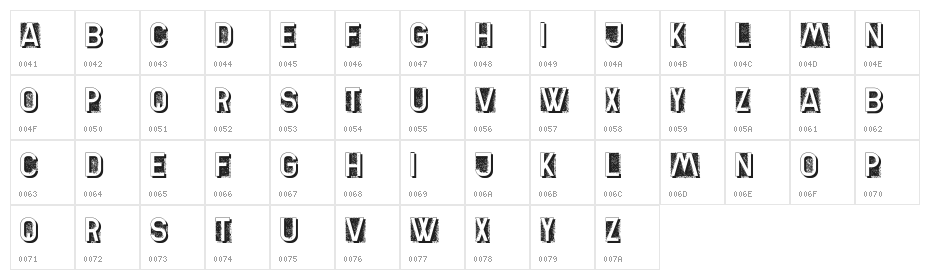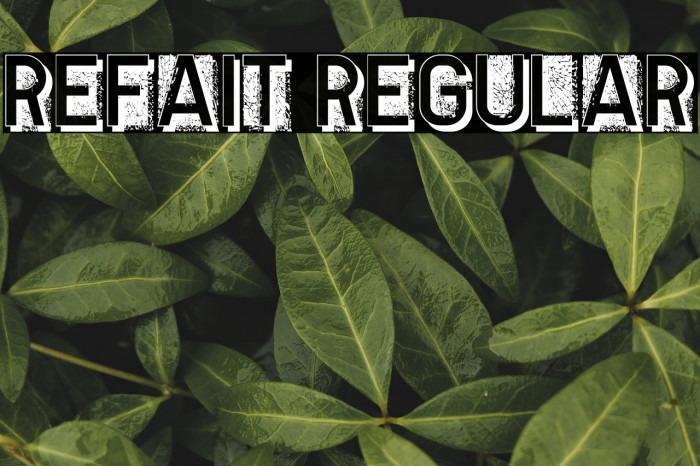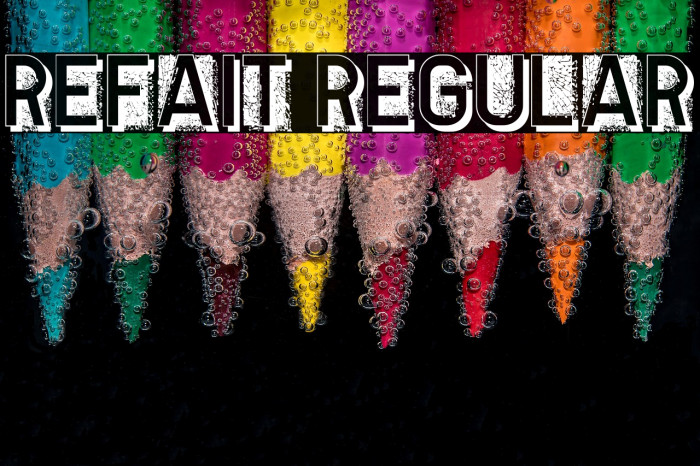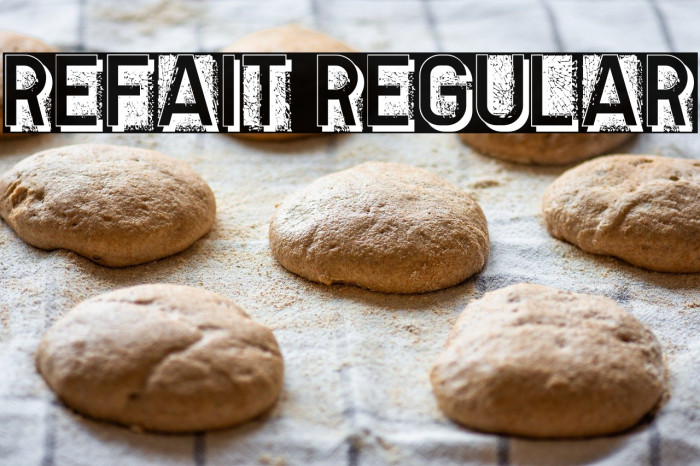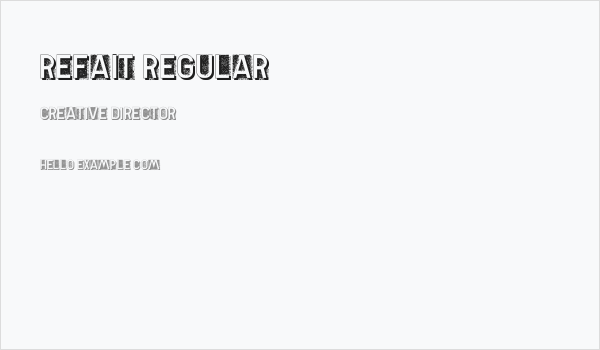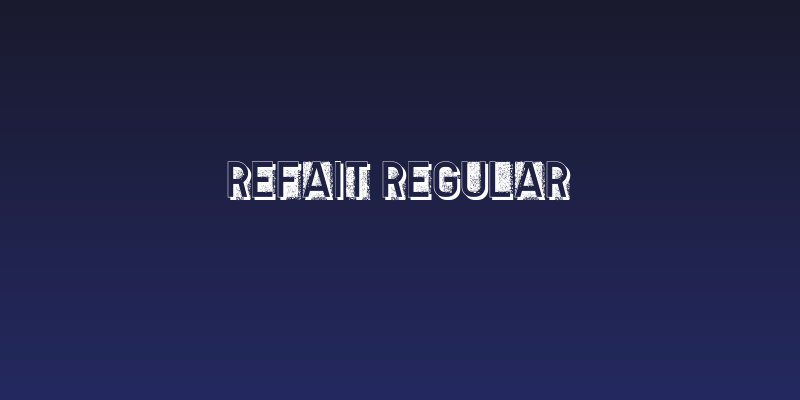
Refait Regular Font
Refait Regular Description
This font features a bold, distressed style with a textured, grunge effect that gives it a rugged and worn appearance. The letters are uppercase and have a strong, impactful presence, making them ideal for attention-grabbing designs. The texture within each character adds a unique, artistic flair, suggesting a vintage or industrial aesthetic. The outlines are clean and well-defined, providing a stark contrast to the rough interior. This combination of bold outlines and distressed interiors creates a dynamic visual effect that is both eye-catching and memorable.
| Proposed Projects | Ideal for poster designs, album covers, branding for edgy or vintage-themed products, and any project requiring a bold, artistic statement. |